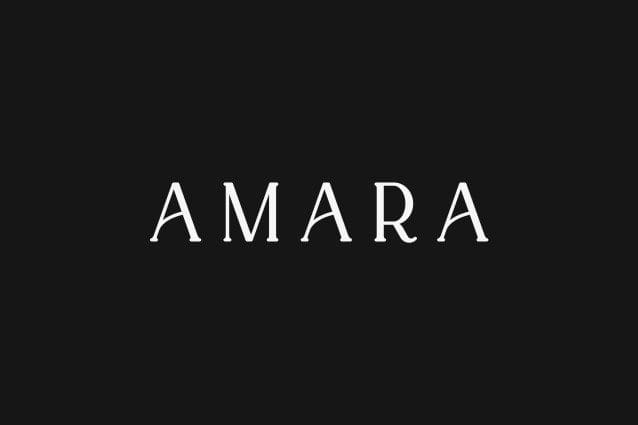
Amara Serif Font
Amara Serif Font is an elegant and versatile font that will make your typography truly unique! It will enchant every logo, branding, headline, or plain text!